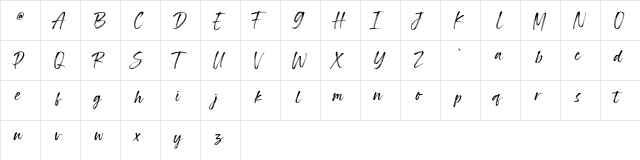
Blackhills Demo Regular
| Foundry | Megi Satyo Widodo |
| Designer | Megi Satyo Widodo |
Design Context for Blackhills Demo Typeface
Blackhills Demo is a composed and adaptable typeface that performs quietly and consistently across a wide range of design contexts.